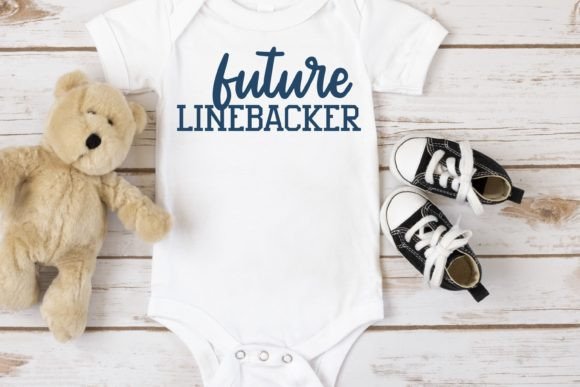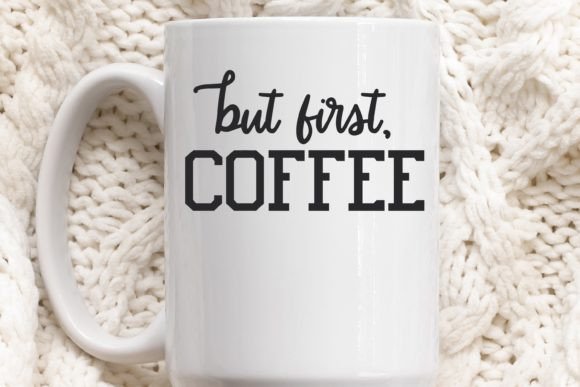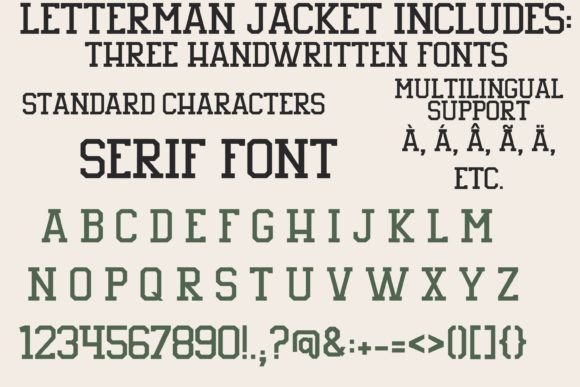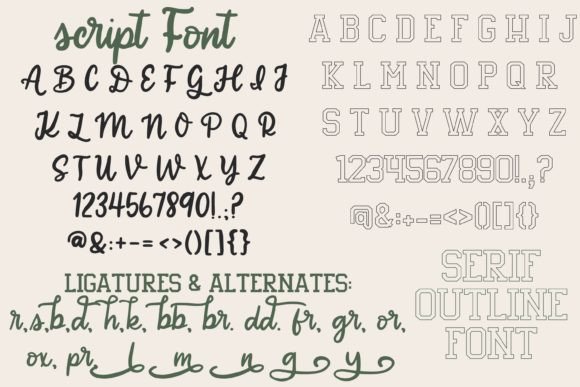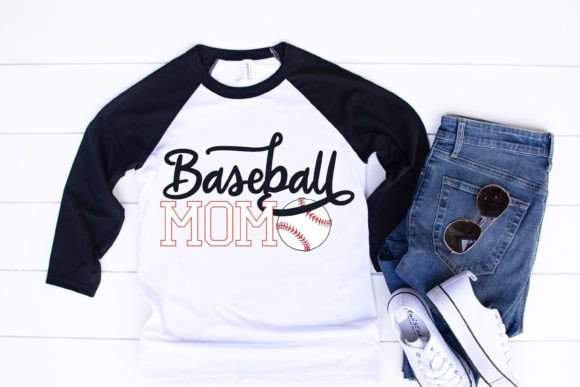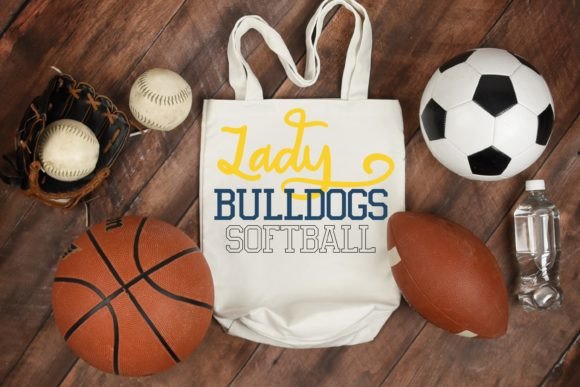
Introduction to Letterman Jacket Font Font
Letterman Jacket is a dynamic and modern handwritten font that brings energy and movement to any design.
With its bold strokes and fluid lines, Letterman Jacket is perfect for designs that need a touch of excitement and vitality Use it for logos, headlines, or anything that needs a burst of energy.
Key Features of Letterman Jacket Font Font